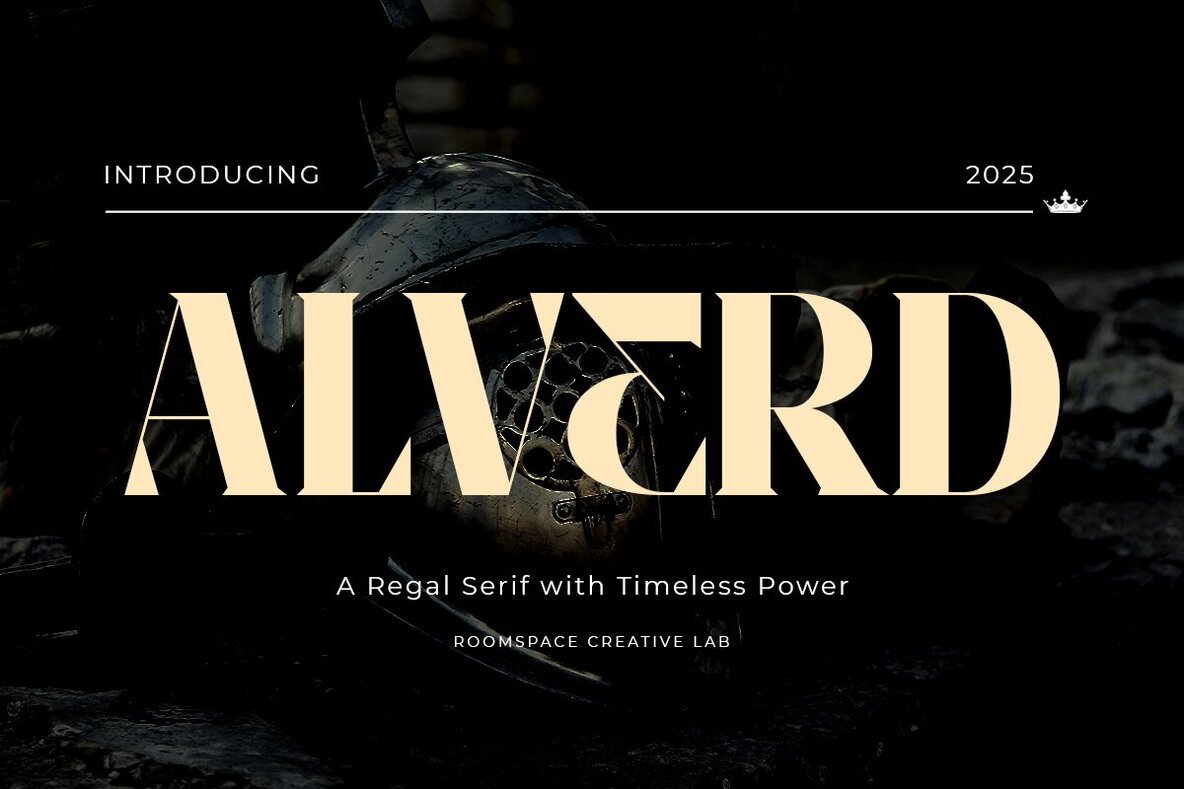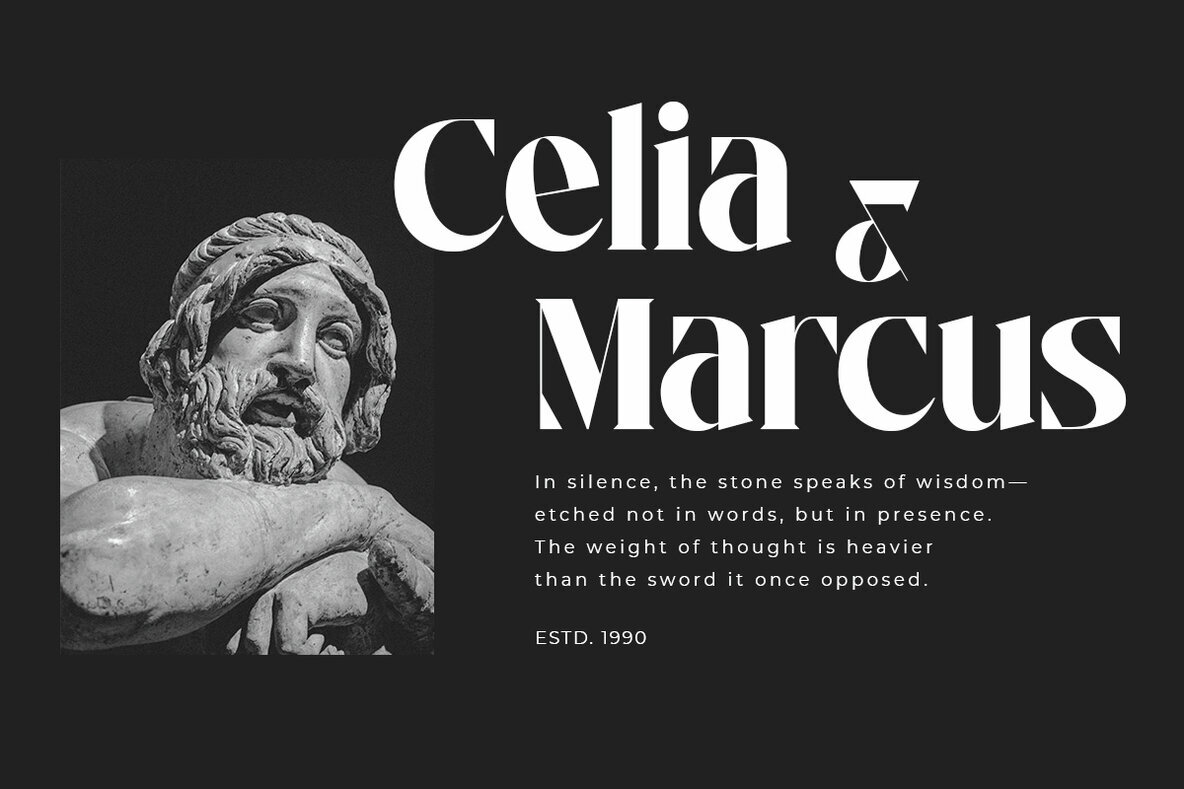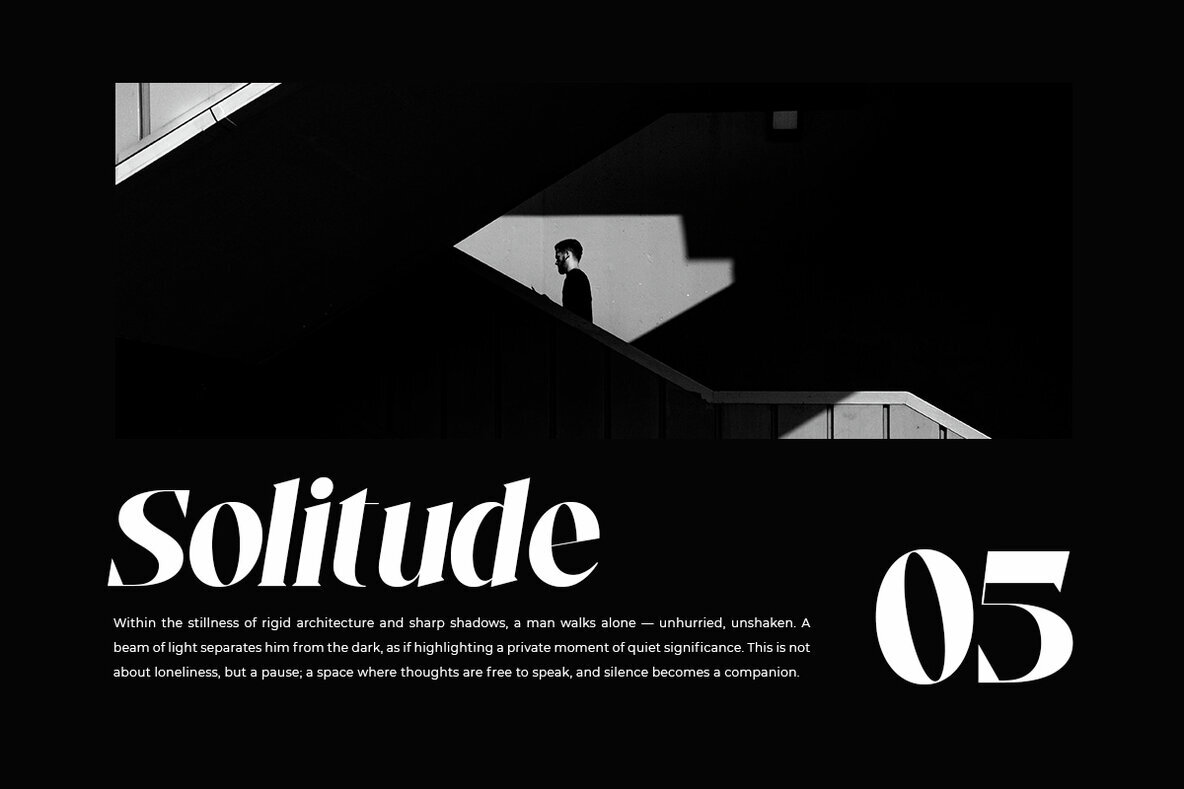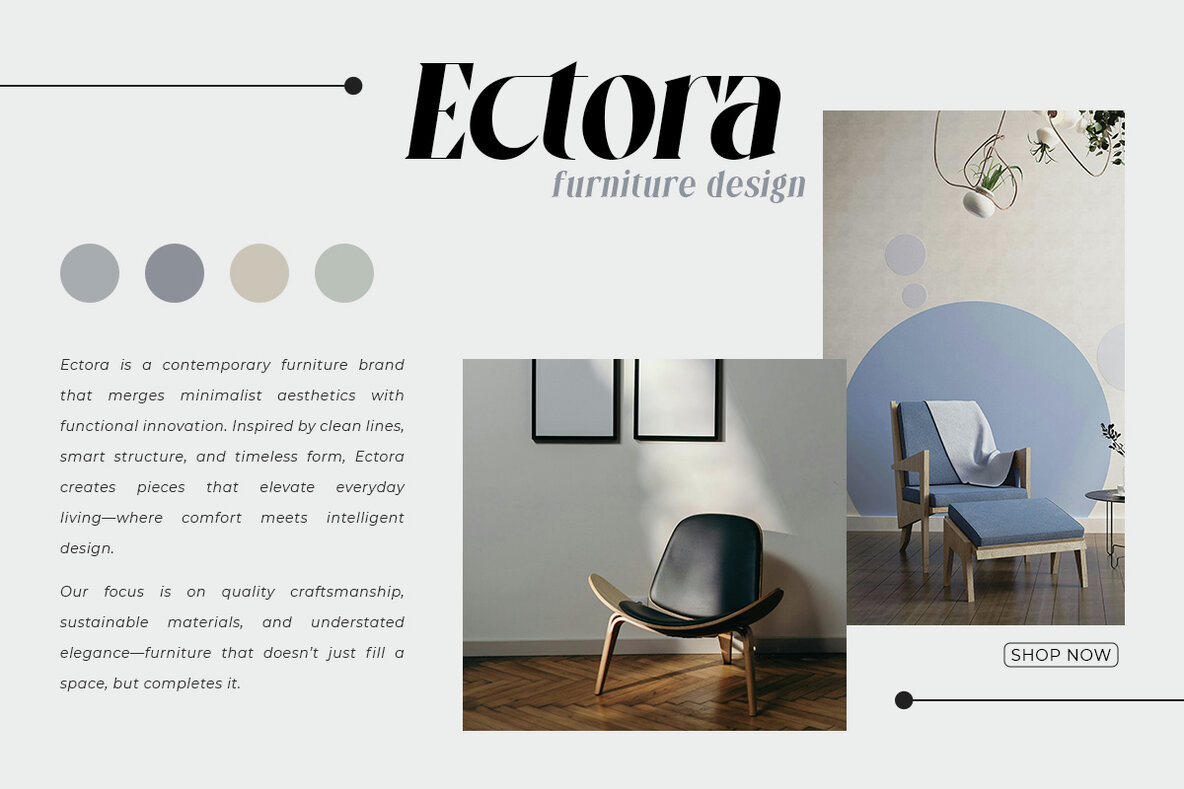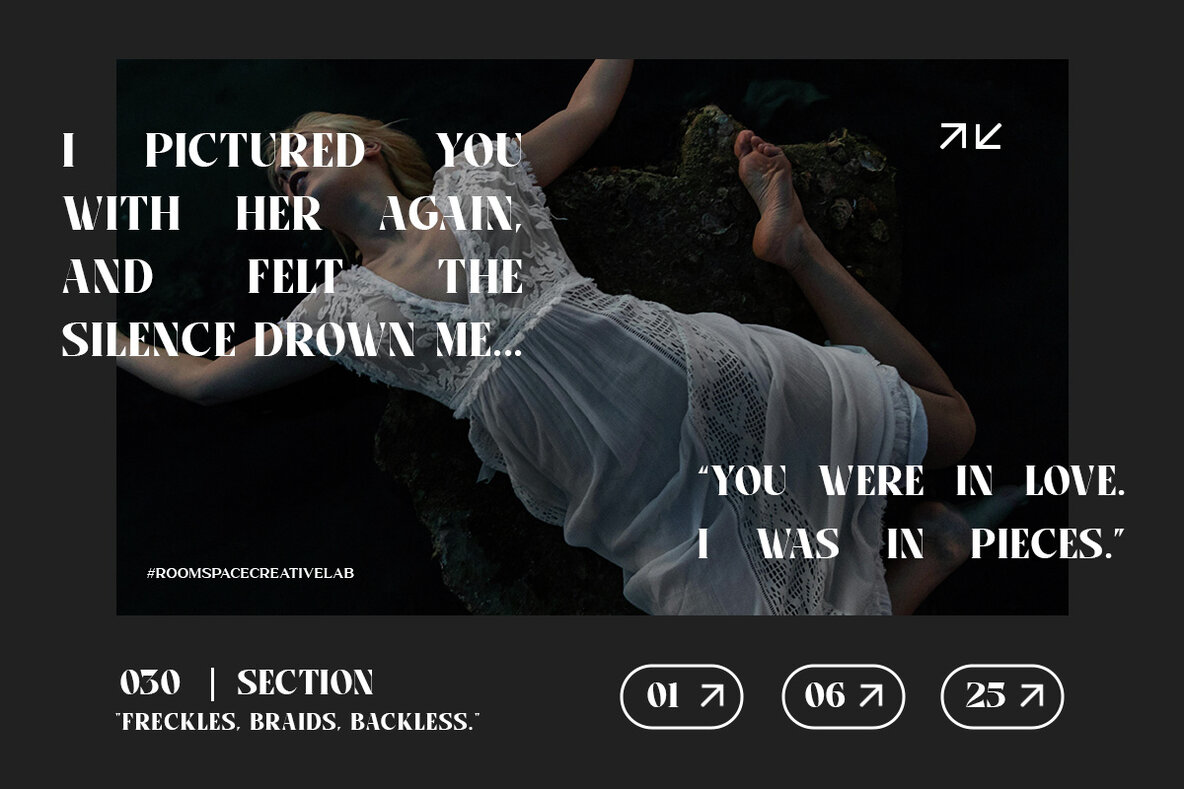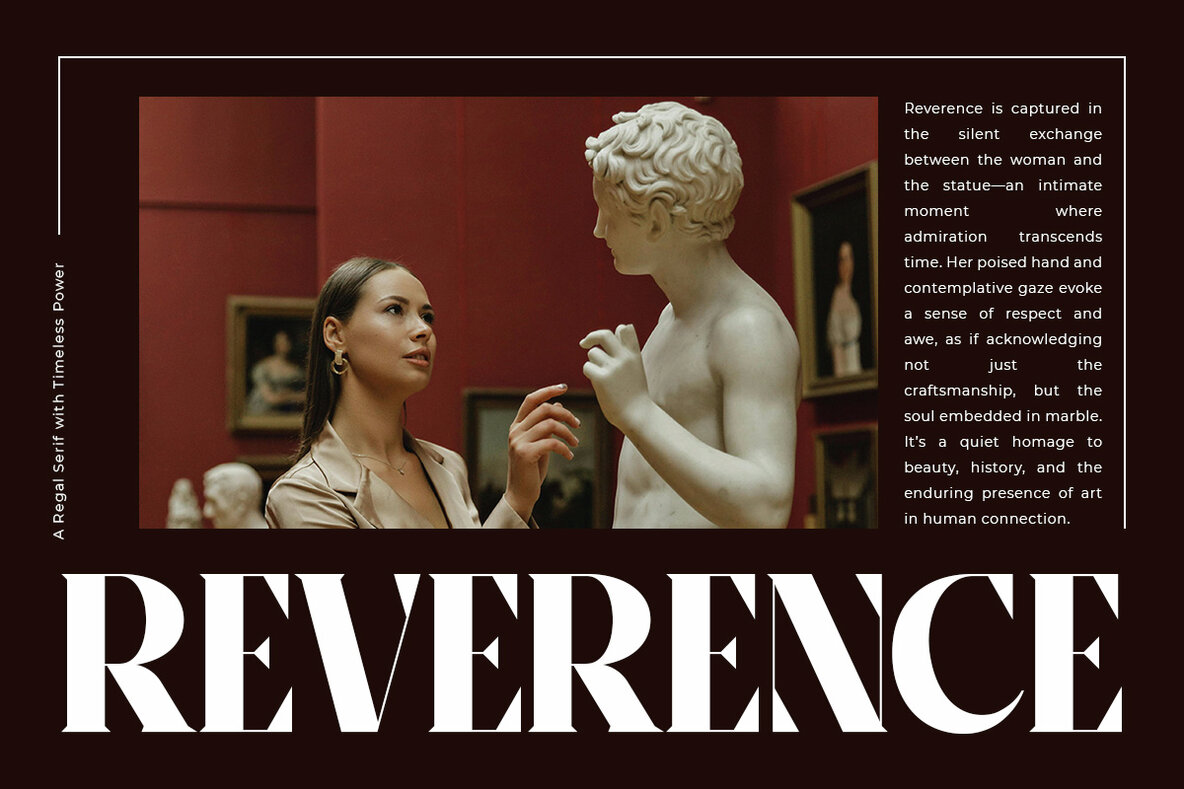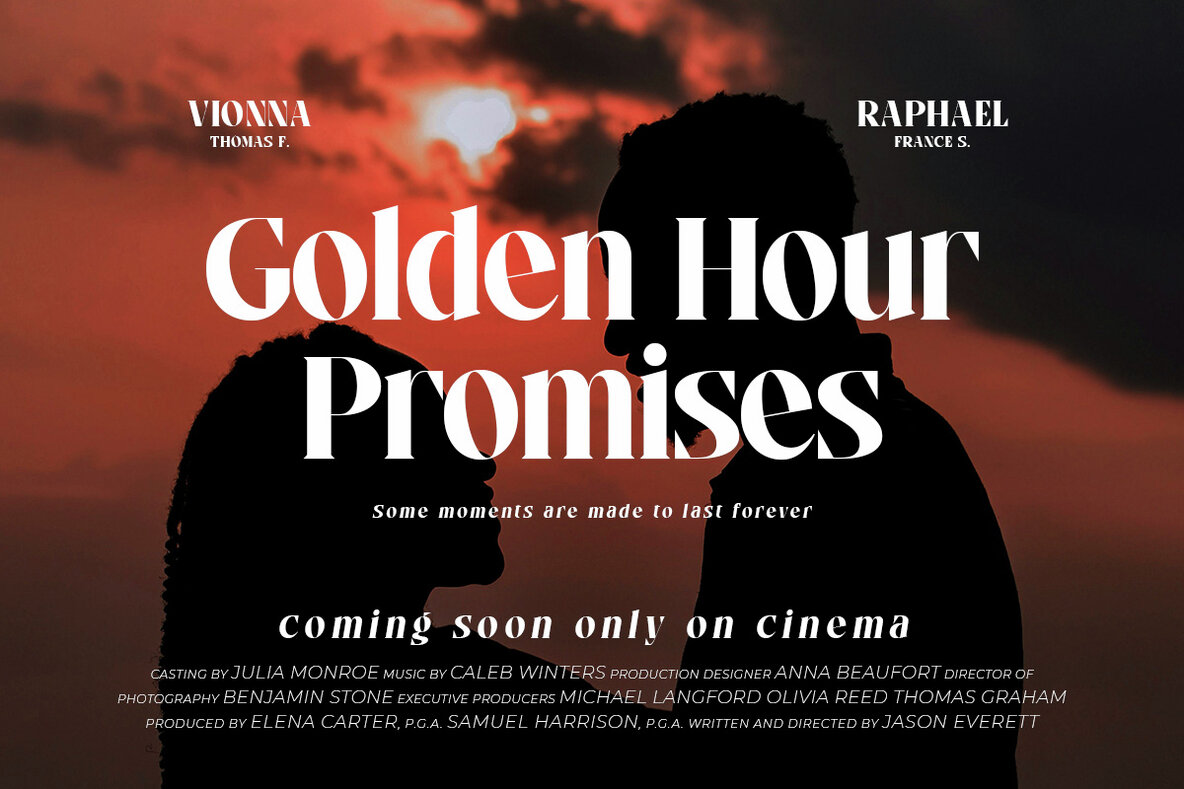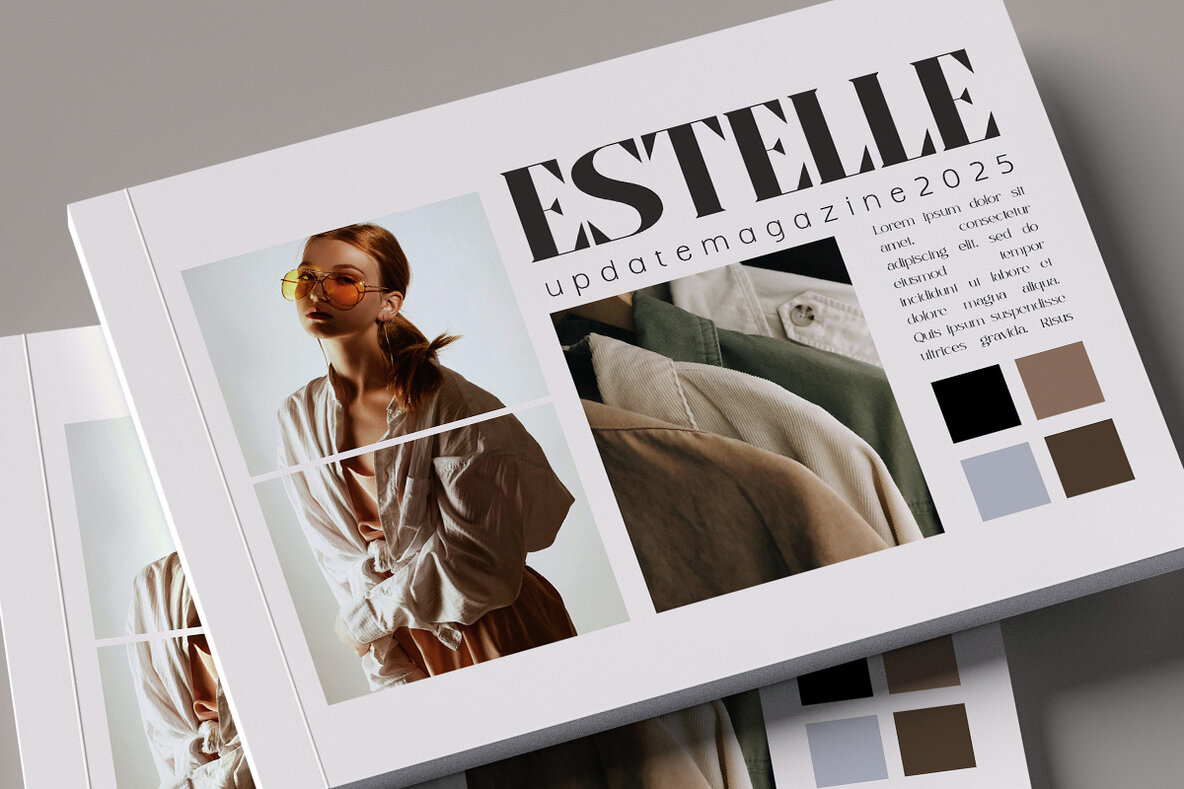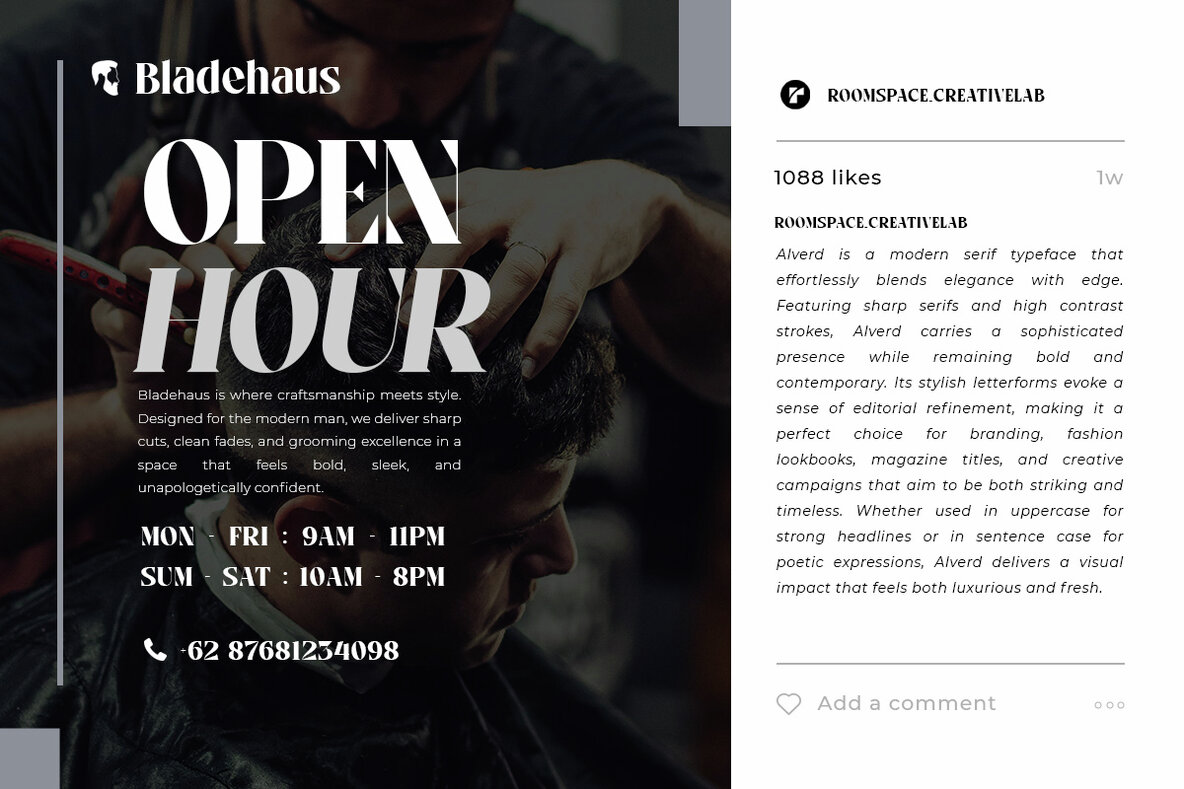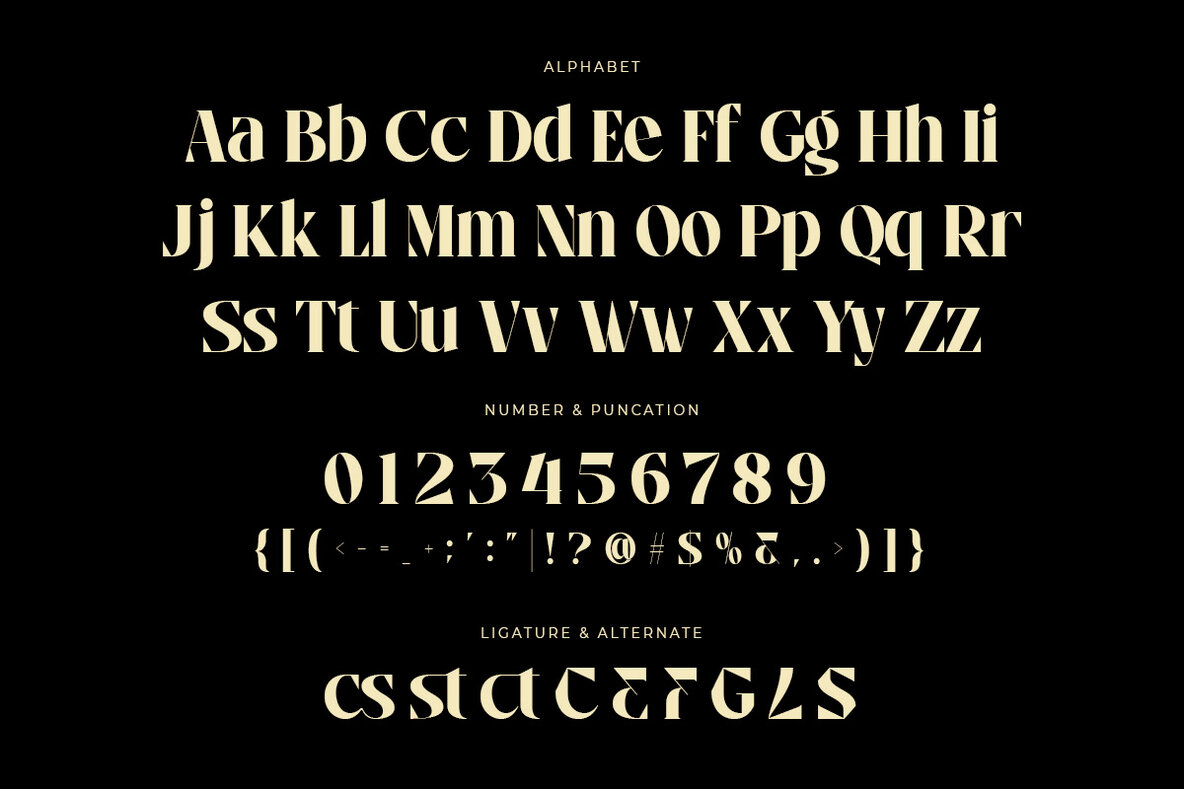
Alverd Font
Alverd is a distinguished serif font crafted to make a bold statement and enhance your designs with an aura of timeless elegance. Drawing inspiration from the strength and sophistication of classic lettering, Alverd marries bold geometric forms with intricate details. This fusion makes it an excellent choice for high-impact branding, logos, headlines, and editorial designs. Its authoritative presence and timeless character make Alverd a go-to for creating premium visual identities, luxury packaging, and posters. Whether you're designing a modern brand, exploring historical concepts, or creating a striking statement piece, Alverd brings unparalleled style and confidence to your work.Alverd: A Regal Serif Font